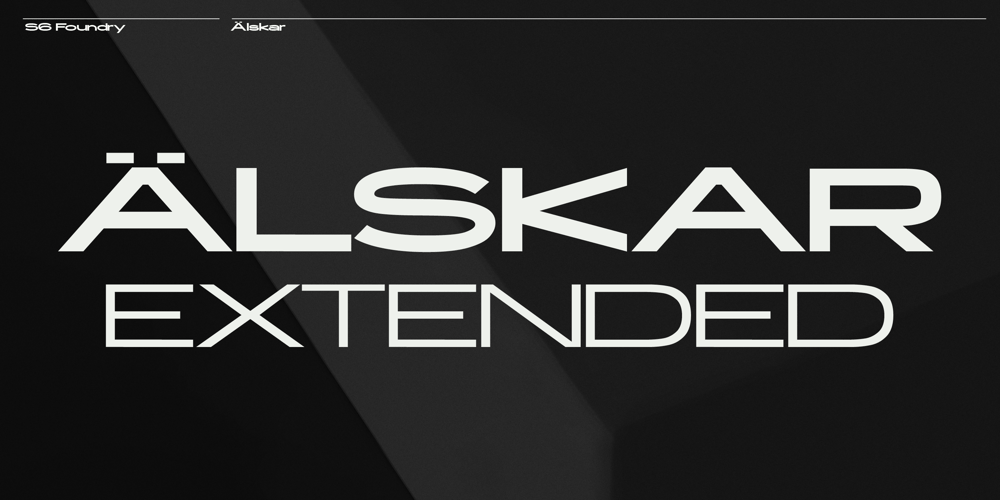
Alskar Extended
Alskar Extended Font Family was designed by Paul Henry Robb and published by S6 Foundry. Alskar Extended contains 2 styles and family package options. Alskar sans is an elegant contemporary wide sans-serif typeface with strong stylistic geometric, authentic contrasts, drawing on the aesthetics and representing the shifting contemporary aesthetics. The distinctive stance gives the right visual consistency for branding and communications. Alskar sans is perfectly suited for headlines, large-format prints, brand identities, social media, advertising, editorial design, posters, magazines, logos, headings, body copy, digital and more.